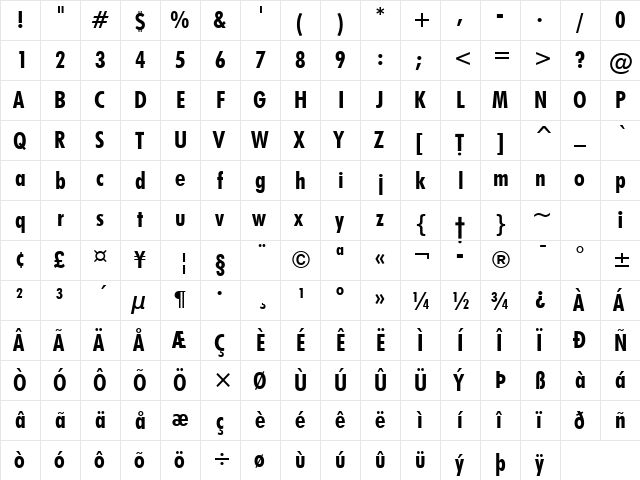
VANIEL BdCn BT Regular
Design Context for VANIEL BdCn BT Typeface
VANIEL BdCn BT takes a measured approach to typography — its balanced proportions and neutral character make it a reliable workhorse for both digital and print work.